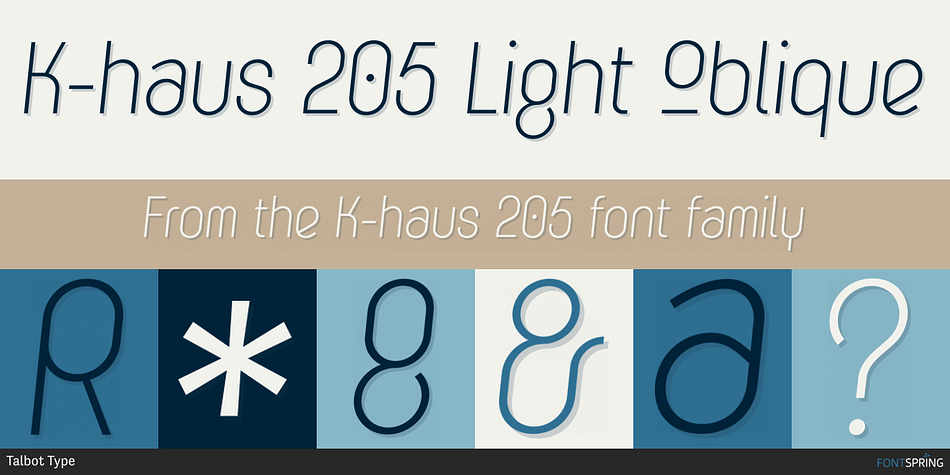
K-haus 205 Light Oblique
Designed by Adrian Talbot, K-haus 205 is a display sans and sans serif font family. This typeface has eight styles and was published by Talbot Type.
K-haus 205 is inspired by the work of graphic designer and typographer, Herbert Bayer, during his time at the Bauhaus around 100 years ago — work that kick-started graphic design as we know it, to this day. It owes something to the simple geometry of Bayer’s hand-drawn, ‘universal typeface’, updated and expanded to deliver a clean, balanced, geometric sans for today.
Also available as K-haus 105, featuring a few different characters here and there, chiefly in the lower case set. Both variations include an extended character set, featuring accented characters for Central European languages.